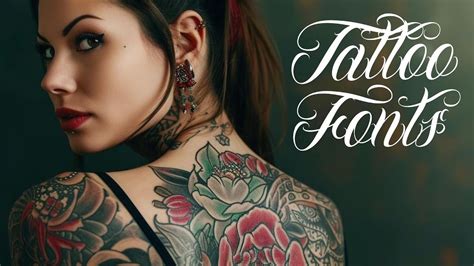
There are actually tons of tattoo fonts for men that can make or break tattoo designs. Lettering styles include tribal, traditional sailor, blackletter, fancy, cursive, script, etc. Free download of biancha font.
Whether it’s for the screen (website, blog, or application), or print (books, magazines, postcards, etc.), here you can try a font online with your phrases of choice via a simple text sampler and font tester that allows you to edit text, size, all combined in your web. For a pretty, delicate text tattoo on the ribs or inner wrist, consider the masterblush typeface, one of the best tattoo fonts for a subtle and feminine piece of ink! Where words fail, typography speaks. Our calligraphy font generator online is a great tool for tattoo enthusiasts.
After analyzing the different major categories , we move to the concrete research of our tattoo font. Let us make the very important decision of what to permanently mark your body with for you. The tattoo idea generator generates tattoo ideas to help you choose your next tattoo design and location. There are actually tons of tattoo fonts for men.
Type, customize, and test to see a word in different fonts, preview cursive strings, and visualize tryout designs. Not who you used to be, not who you. Lettering styles include tribal, traditional sailor, blackletter, fancy, cursive, script, etc. Our online tattoo text generator can show you what various fonts look like in large size, and allow you to compare fonts.
Where words fail, typography speaks. Type different fonts and see how they look automatically. Our free tattoo font creator online gives you an inside look at what real tattoo fonts look like in “blown up” size. Our online tattoo text generator can show you what various fonts look like in large size, and allow you to compare fonts for future.
Choose from thousands of professional tattoo designs. Where do you want to get inked? Our online tattoo text generator can show you what various fonts look like in large size, and allow you to compare fonts for future reference. Tattoo fonts perfectly carry this element all the while adding in some thick and bold strokes. Type, customize, and test to.
On this page we have collected beautiful tattoo fonts that will suit perfectly for your name tattoo. Take this quiz with friends in real time and compare results. It’s better to be extra sure than sorry. Since tattoo fonts are rarely used to design body and paragraph text, the most common types of tattoo fonts are script and display. Category.